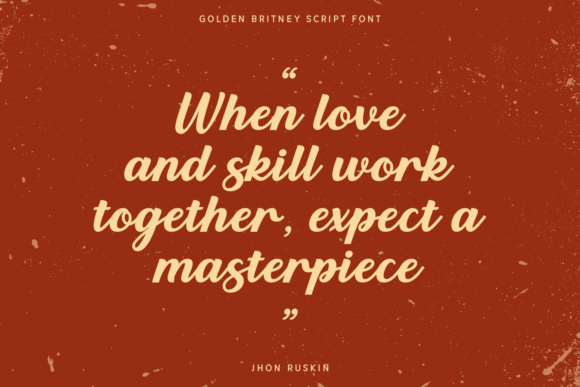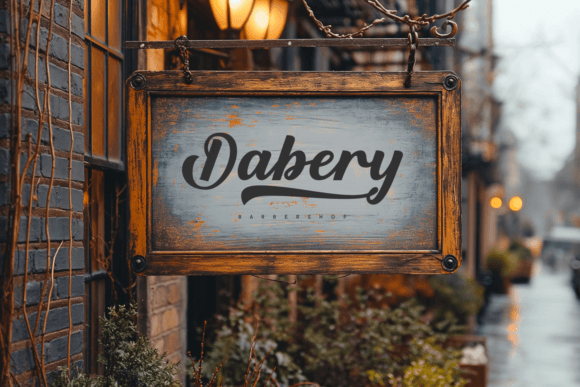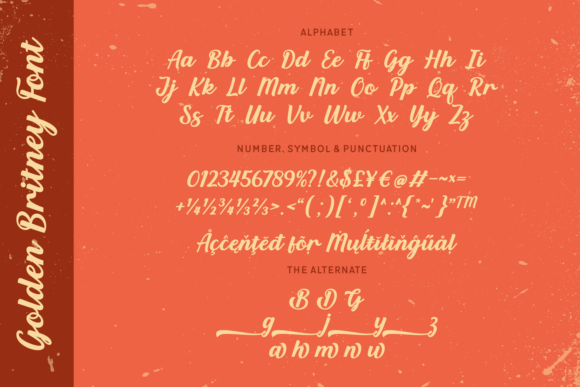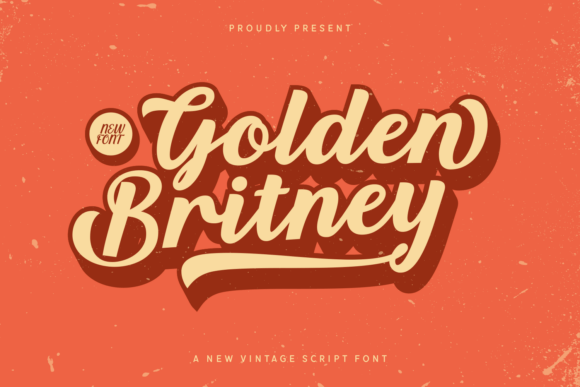
Introducing Golden Britney: The Ultimate Bold Vintage Script Font
Are you a designer or crafter looking for a font that combines nostalgia with a modern twist? Look no further than Golden Britney, a bold vintage script font that is inspired by retro aesthetics. With its smooth curves, playful swashes, and strong presence, Golden Britney is the perfect addition to any project.
A Font that Combines Nostalgia and Creativity
Golden Britney is a font that perfectly combines nostalgia and creativity. Its vintage inspiration brings a timeless charm to any project, while its modern twist ensures that it remains fresh and relevant. Whether you’re working on a logo, poster, branding, packaging, or merchandise, Golden Britney is the ideal choice.
Key Features of Golden Britney
- Smooth Curves: Golden Britney features smooth, flowing curves that give it a luxurious and elegant feel.
- Playful Swashes: The font includes playful swashes that add a touch of whimsy and creativity to any project.
- Strong Presence: Golden Britney has a strong, confident presence that makes it perfect for headlines, titles, and logos.
- Bold and Vintage: The font’s bold, vintage inspiration gives it a unique and eye-catching style.
Uses for Golden Britney
Golden Britney is a versatile font that can be used for a wide range of projects, including:
- Logos: Golden Britney’s strong presence and smooth curves make it perfect for logos that need to make a statement.
- Posters: The font’s bold, vintage inspiration makes it ideal for posters that need to grab attention.
- Branding: Golden Britney’s unique style makes it perfect for branding projects that need to stand out.
- Packaging: The font’s playful swashes and smooth curves make it perfect for packaging projects that need to be eye-catching.
- Merchandise: Golden Britney’s bold, vintage inspiration makes it perfect for merchandise projects that need to make a statement.
Why Choose Golden Britney?
There are many fonts available that claim to be vintage-inspired, but Golden Britney stands out from the crowd. Here are just a few reasons why:
- Unique Style: Golden Britney has a unique style that combines nostalgia with a modern twist.
- High-Quality Design: The font is designed to the highest standards, with smooth curves and playful swashes.
- Versatility: Golden Britney can be used for a wide range of projects, from logos to posters to packaging.
Tips for Using Golden Britney
Here are a few tips for using Golden Britney in your projects:
- Use it as a Headline Font: Golden Britney’s strong presence makes it perfect for headlines and titles.
- Experiment with Swashes: The font’s playful swashes can add a touch of whimsy and creativity to any project.
- Pair it with Other Fonts: Golden Britney can be paired with other fonts to create a unique and eye-catching style.
- Use it for Branding: The font’s unique style makes it perfect for branding projects that need to stand out.
Golden Britney is a bold vintage script font that is inspired by retro aesthetics with a modern twist. Its smooth curves, playful swashes, and strong presence make it ideal for logos, posters, branding, packaging, and merchandise. With its unique style, high-quality design, and versatility, Golden Britney is the perfect addition to any project. So why wait? Download Golden Britney today and bring a timeless charm to your designs.